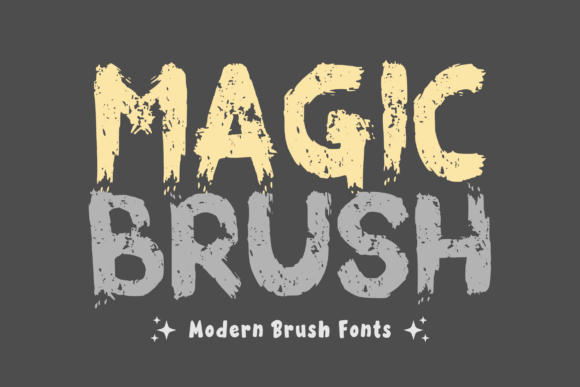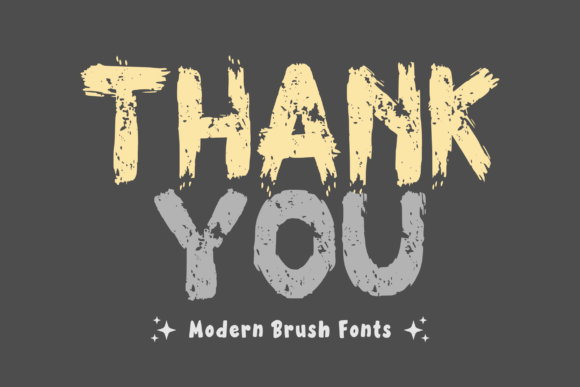
Introduction to Grunge Brush Font
Discover the edgy versatility of “Grunge Brush”, a contemporary brush-styled font.
| 👤 Author | TaralArt |
Each character is gracefully crafted, featuring distinctive spots for easy recognition Grunge Brush is idyllic for embellishing sublimation designs on t-shirts, jazzing up mugs, adding a creative touch to tote bags, breath life into animations, or adding pop to comic titles and beyond.
Key Features of Grunge Brush Font
Why Choose Grunge Brush Font?